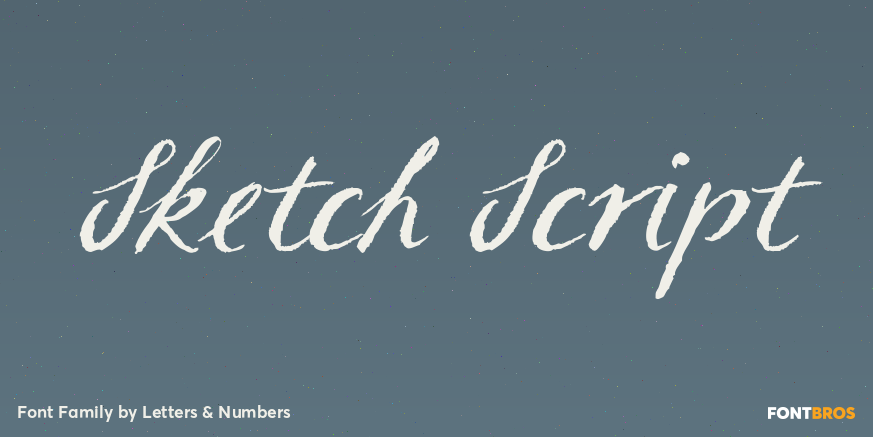
HomeFont BrosDistressedSketch Script DistressedScripts: CasualHandwritten Sketch Script FacebookXPinterestWhatsApp 1 of 1 About Sketch Script Shabby-chic calligraphic script based on hand-drawn characters. Will work well in boutique and vintage environments, conveying a romantic, hand-made touch.  DOWNLOAD NOW People also explored Querina Font Running Hipster Simple Melody Font Everybody Font Resigner Font Qardilla Duo Font Kiss and Tell Bobotie Blooms Font Boozebats 321 0 TagsSketch Script Font Previous articleKiesterNext articleYWFT Darts LEAVE A REPLY Cancel reply Comment: Please enter your comment! Name:* Please enter your name here Email:* You have entered an incorrect email address! Please enter your email address here Website: Save my name, email, and website in this browser for the next time I comment. Personal Use Free Namskow Personal Use Free Read more about this font Allea Sweet Personal Use Free Read more about this font Screengem Personal Use Free Read more about this font Bakk Trieng Personal Use Free Read more about this font BLOG Free Fonts Risk: Why Free Fonts Can Be Dangerous for Designers Free Fonts Risk: Why Free Fonts Can Be Dangerous for Designers Using free fonts is a common practice in web and graphic design. However, the... Top 7 Google Fonts Alternatives for Faster and Privacy-Friendly Web Design (2025) To increase your work productivity, choose the most readable fonts. Exploring Font Trends